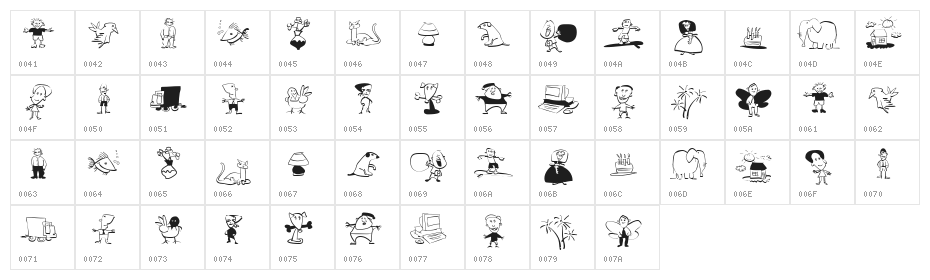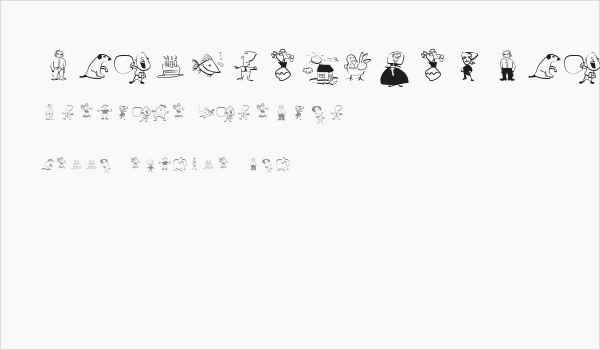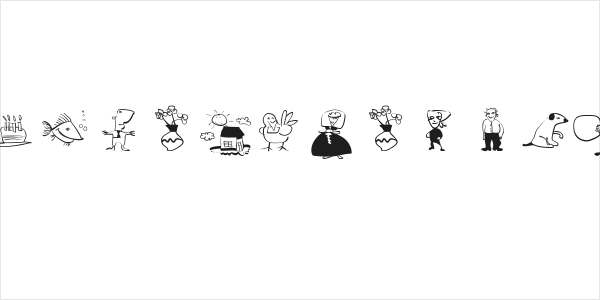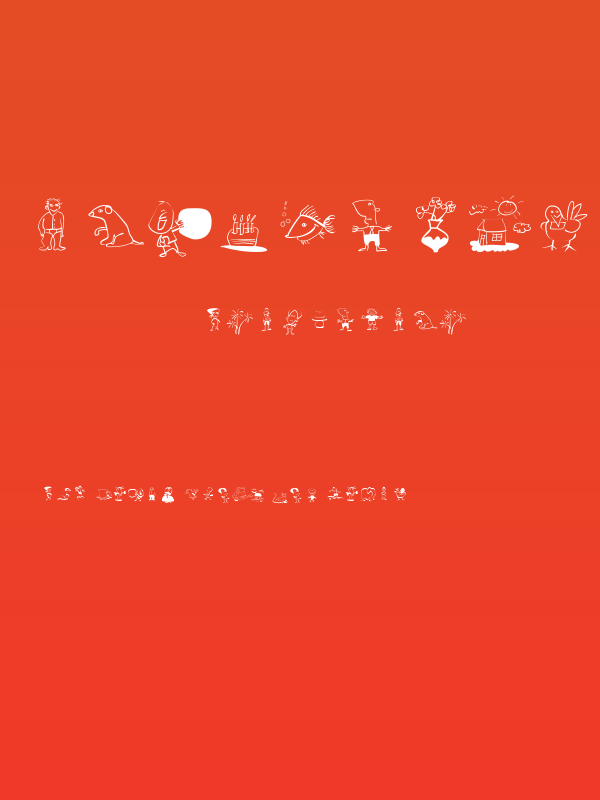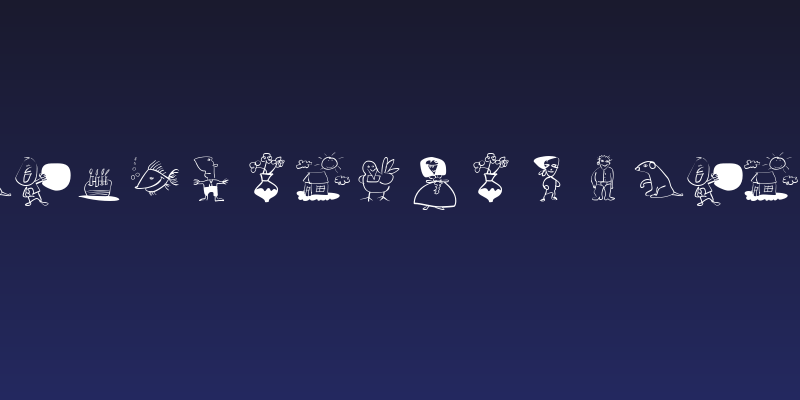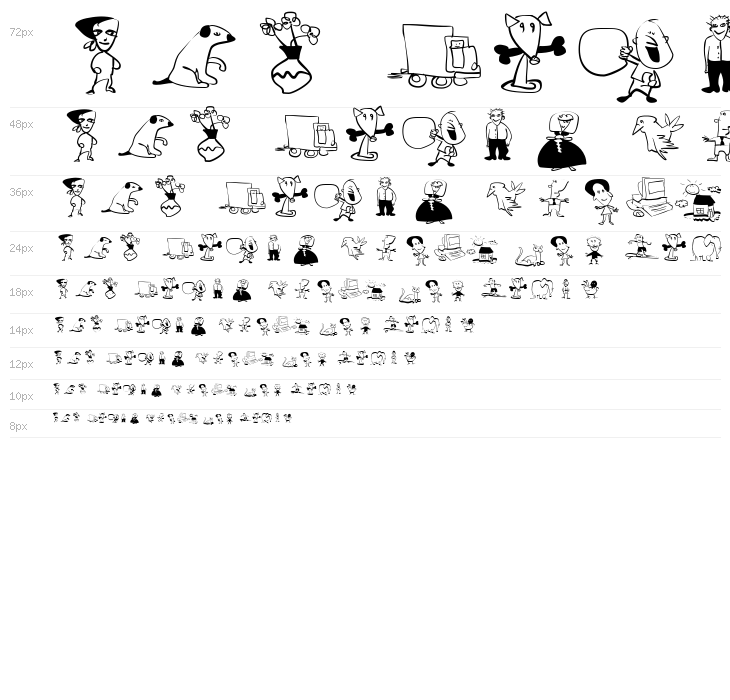
ChildrenSketchings Font
ChildrenSketchings Description
| Overall Style | Playful, Decorative, Childlike |
| Use Case | Headlines, Logos, Posters, Invitations |
| Proposed Projects | Children's books, educational materials, playful branding, greeting cards, posters, party invitations. |